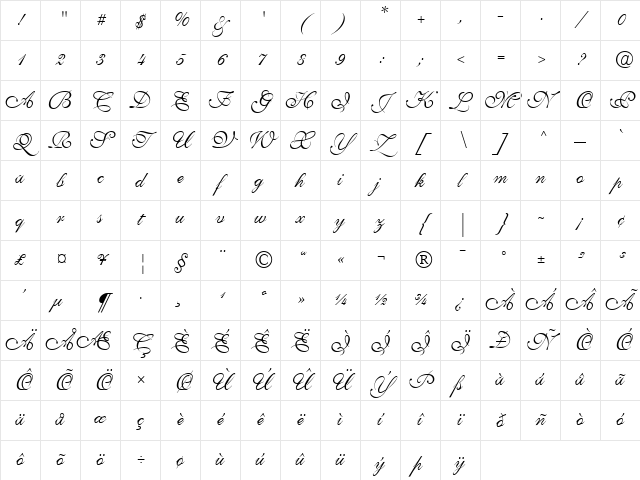
Shelley Medium
Shelley Family
Shelley Medium
Shelley Medium Font Preview
Shelley Medium Uppercase Preview
Shelley Medium Lowercase Preview
Shelley Medium Numeric Preview
Shelley Medium Character Map
Complete Shelley Medium glyph index. Displaying only characters natively supported by Shelley Medium font.
Shelley Medium Character Map
Design Context for Shelley
Shelley is a composed and adaptable typeface that performs quietly and consistently across a wide range of design contexts.